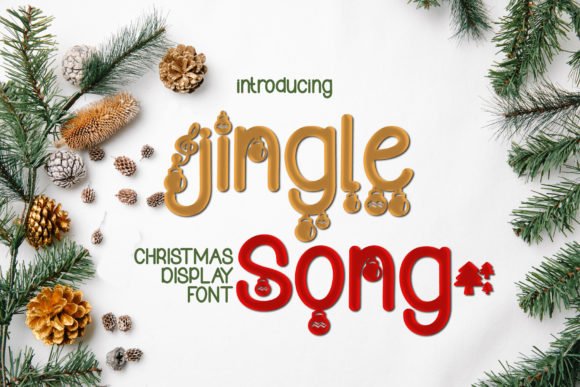
The Magic of Jingle Song Font: Elevate Your Designs
Do you remember that moment when you’re browsing through a festive holiday market, surrounded by twinkling lights and the sweet scent of freshly baked cookies? The excitement is in the air, and you’re inspired to create something special that captures the spirit of the season. This is the perfect moment to break out your favorite design tools and unleash your creativity with the Jingle Song Font.
This charming display font is a must-have for any designer looking to add a touch of whimsy and festivity to their projects. With its PUA encoding, you can easily access all the glyphs and swashes, making it a breeze to create unique and eye-catching designs. Whether you’re working on a holiday card, a wedding invitation, or a social media campaign, the Jingle Song Font is sure to bring a smile to your audience’s faces.
Jingle Song Font Key Features
• Unique Characteristic: The font features a unique, hand-drawn design with a playful and festive feel, perfect for holiday-themed projects.
Jingle Song Font Review
I recently had the chance to work with the Jingle Song Font, and I must say it’s a unique addition to any holiday project. ✨ The font’s playful, hand-drawn style immediately catches the eye, making it perfect for Christmas or winter-themed designs.
Here are some of the things I liked about the font:
• ✨ Wide range of character sets, including accents and special characters.
• ✨ The font is highly customizable, allowing for easy color and size adjustments.
• ⚠️ Some characters may appear slightly pixelated or blurry at larger sizes.
• ⚠️ The font’s weight and style may not be as versatile as some other fonts, limiting its use in certain contexts.
Overall, I found the Jingle Song Font to be a fun and creative addition to any holiday project. While it may have some limitations, its unique style and wide range of character sets make it a great choice for designers looking to add some festive flair to their work.
The Jingle Song Font is ideal for creating festive and playful designs, such as:
– Christmas or holiday-themed graphics
– Music-related projects, like song lyrics or album artwork
– Party invitations or event materials
– Social media graphics or advertisements